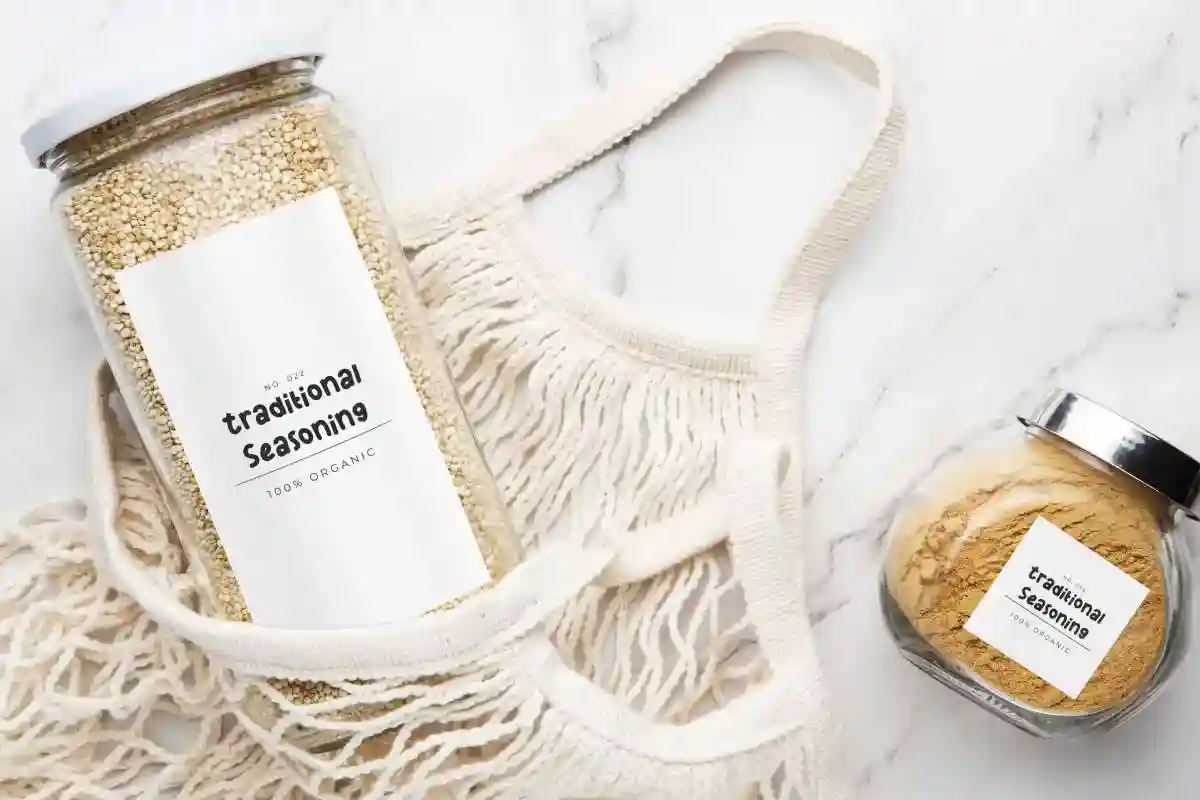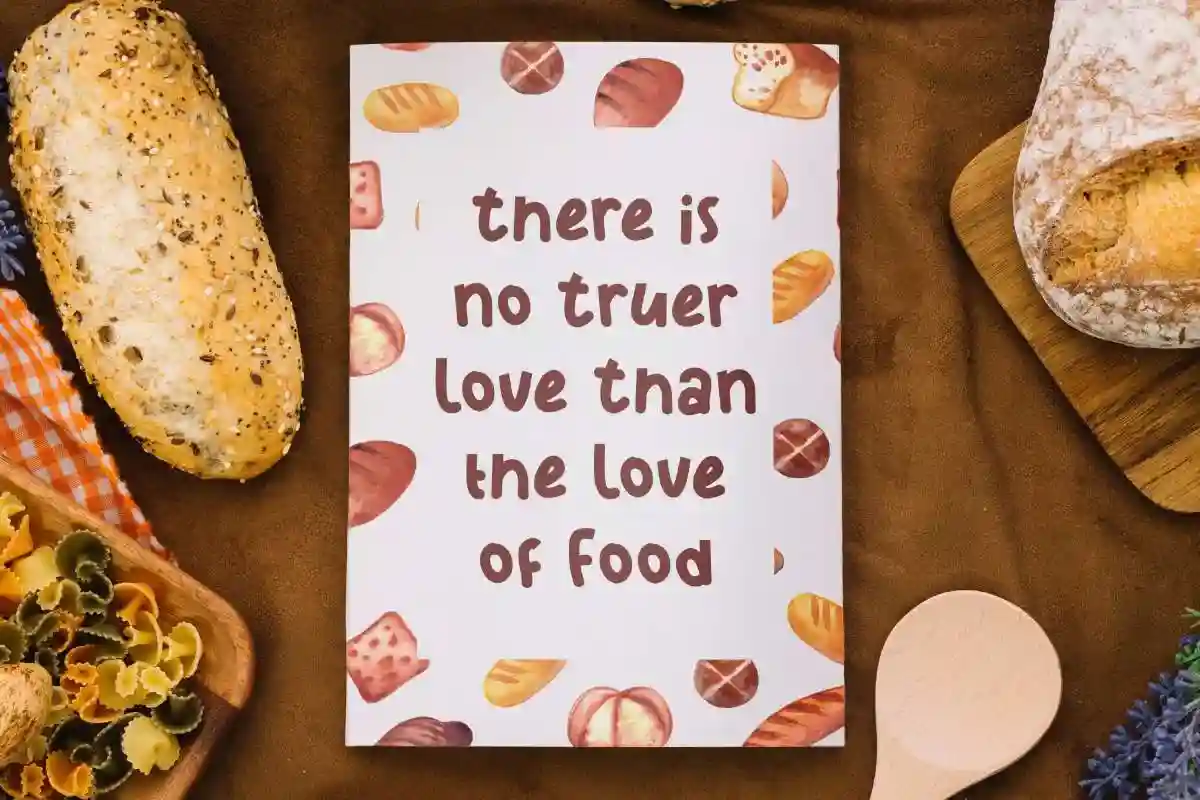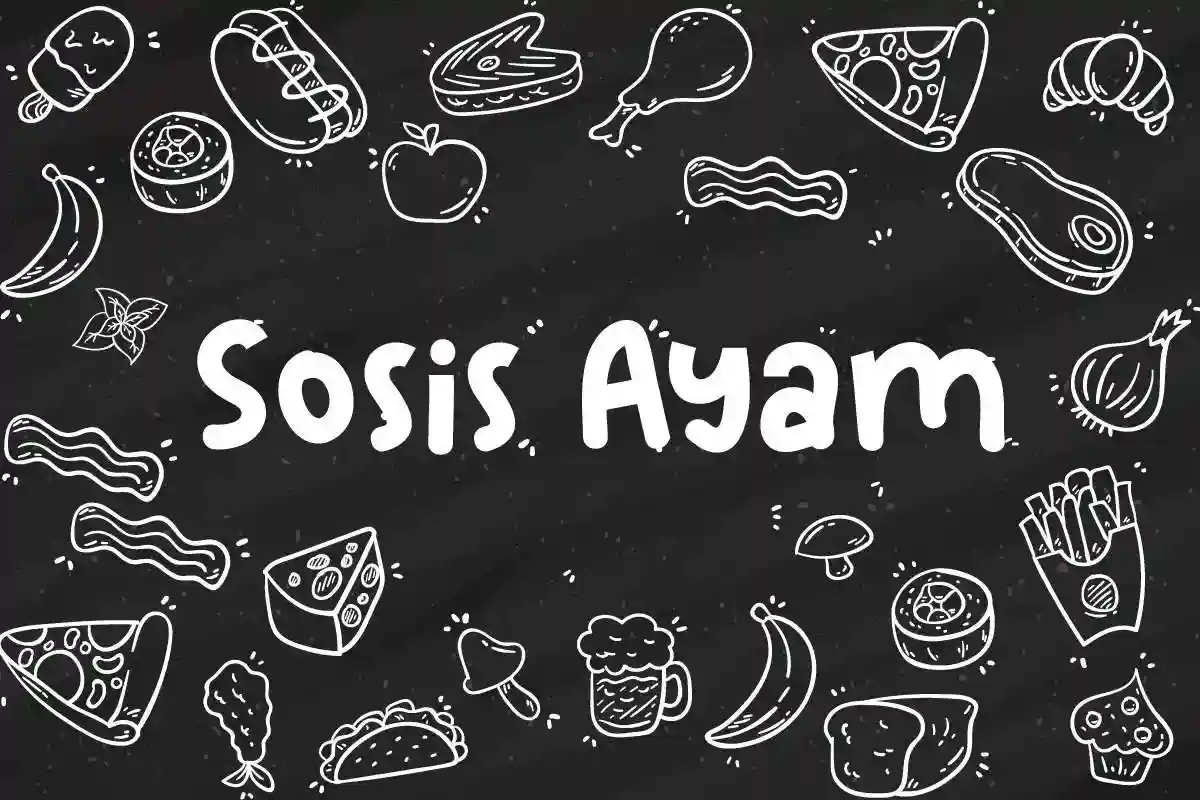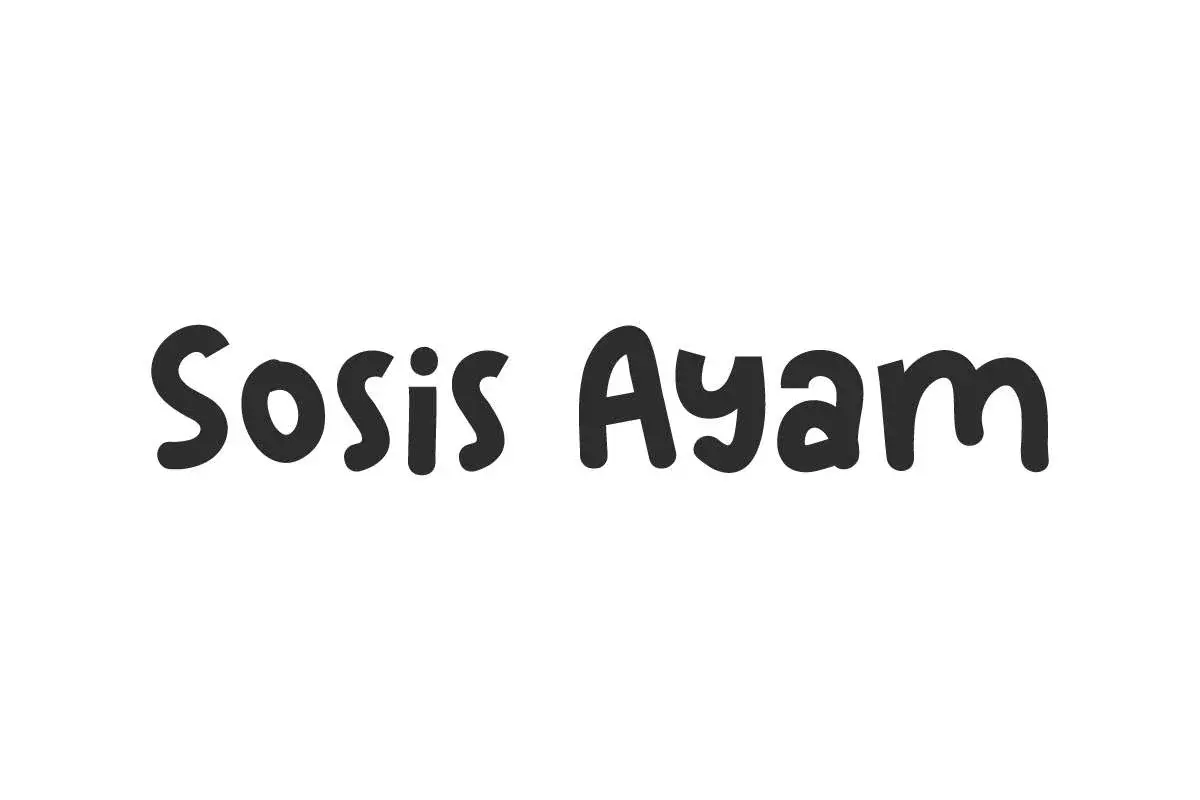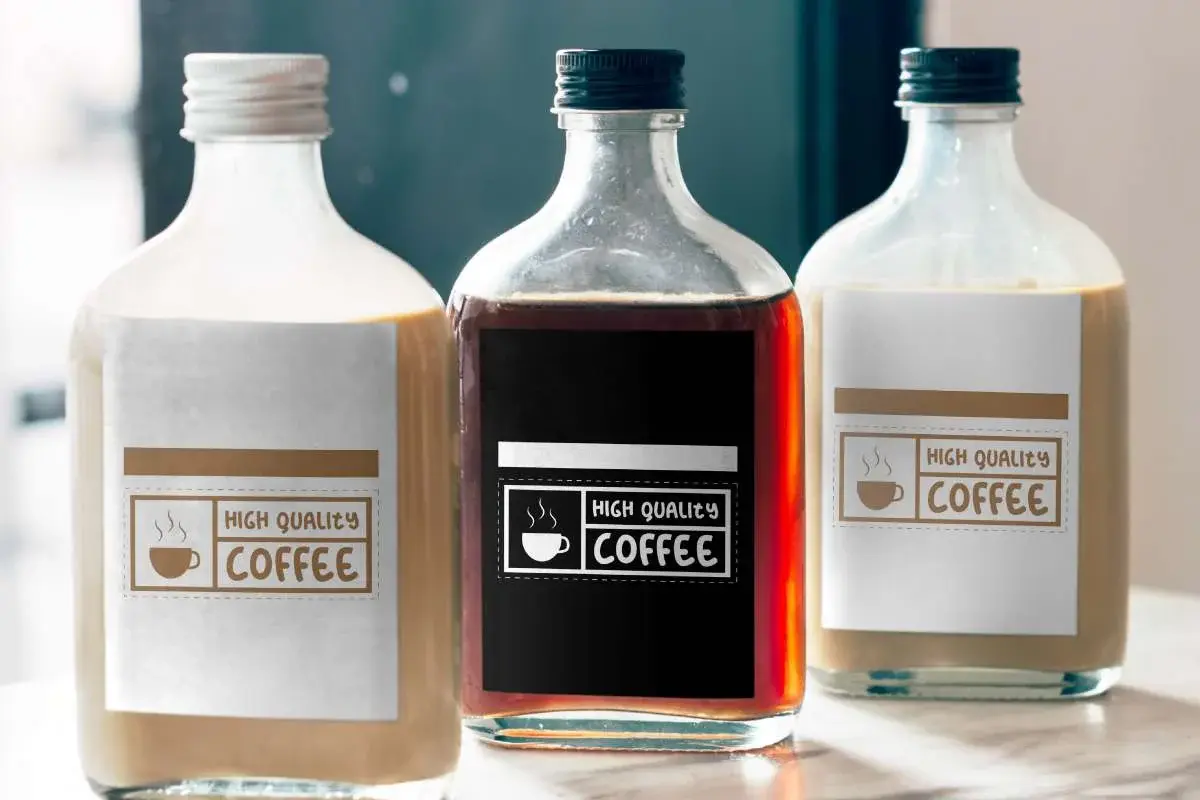
Sosis Ayam Font
Sosis Ayam Font is an adorable comic display font inspired by a food that kids love. It would be awesome for kids related brands, family related, schools, educations and many other businesses !
Sosis Ayam Font is an adorable comic display font inspired by a food that kids love. It would be awesome for kids related brands, family related, schools, educations and many other businesses ! This cheerful bold comic  will be attractive and highlight your business in a fun way, such as author, bakery, café, cartoon, child food, clothing brand, comic, crafting, food court, game world, interior design, movie, packaged beverages, playground, printing, publishing, restaurant, school, social media content, writer, and other interesting things.
Sosis Ayam Font includes full set of Uppercase and Lowercase Basic Characters, Number, Punctuation, and Symbol. Surely it will make your design full of joy, such as apps, billboard, brochure, business card, flyer, food label design, headline, menu sheet, poster, screen print, stationery, sticker, title, watermark, etc.